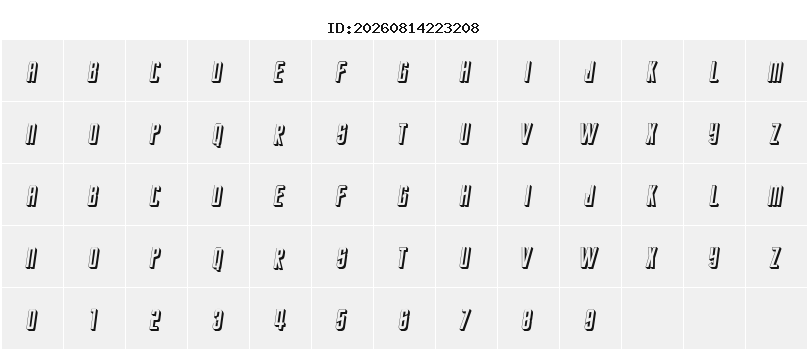
• Font Name: Star Trek Enterprise Future
• Designer: P. A. Vannucci
About Star Trek Enterprise Future.ttf
Star Trek Enterprise Future.ttf is a modern, elegant sans-serif font designed for ultimate readability and visual harmony. Perfect for branding, headlines, web design, and print materials.